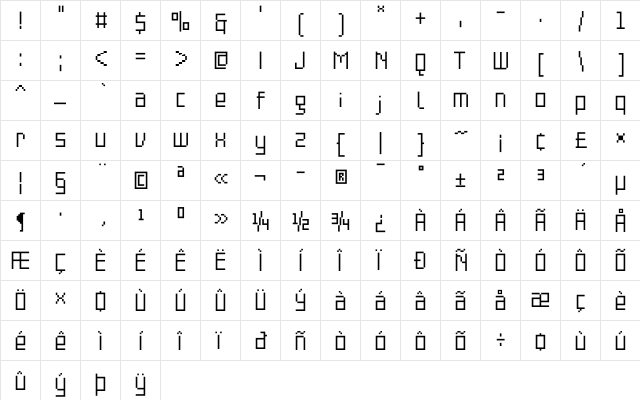
PF Online Three Pro Single Font Preview
PF Online Three Pro Single
PF Online Three Pro Single Font Details
| Style | Single |
| Foundry | Parachute蠗orldwide |
| Designer | Panos Vassiliou |
Design Context for PF Online Three Pro Typeface
PF Online Three Pro takes a measured approach to typography — its balanced proportions and neutral character make it a reliable workhorse for both digital and print work.